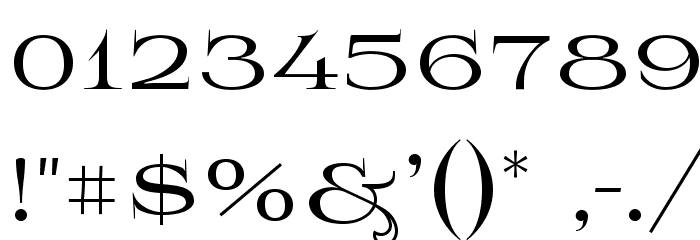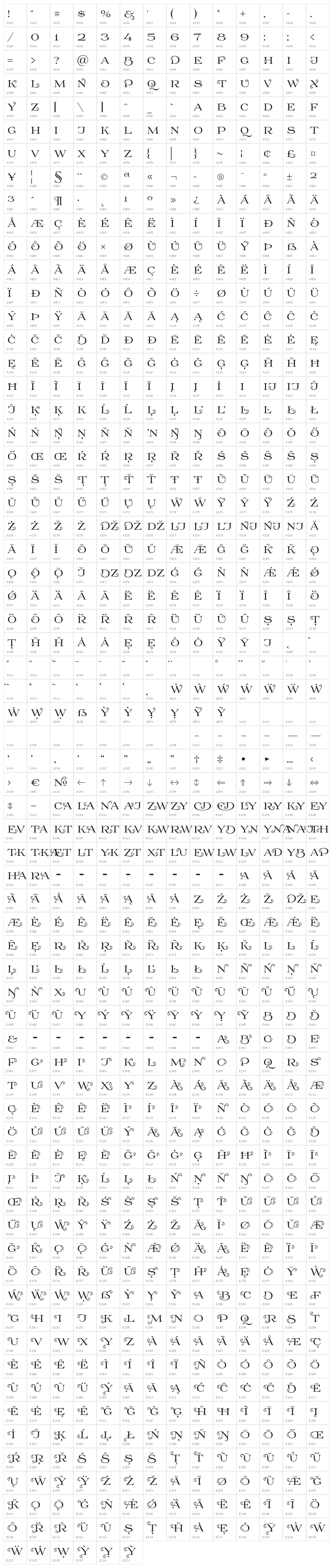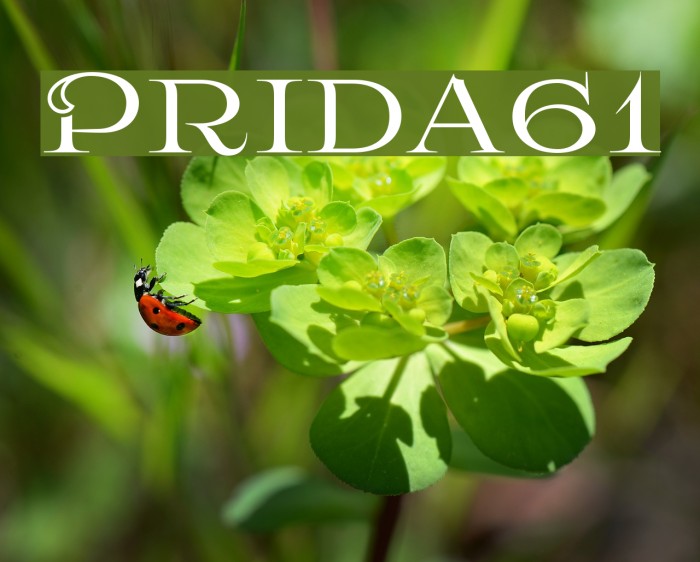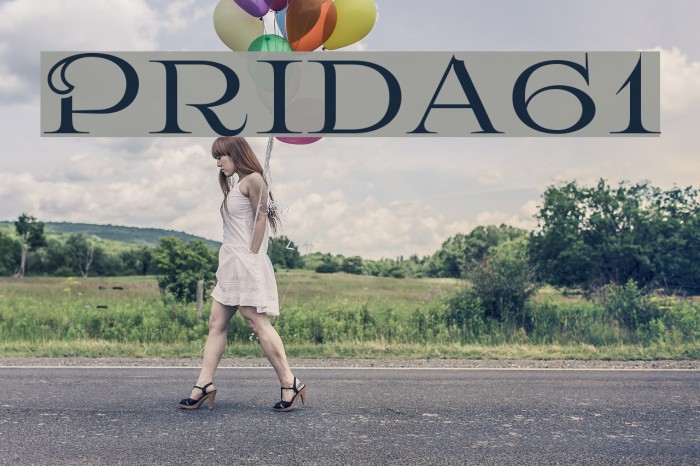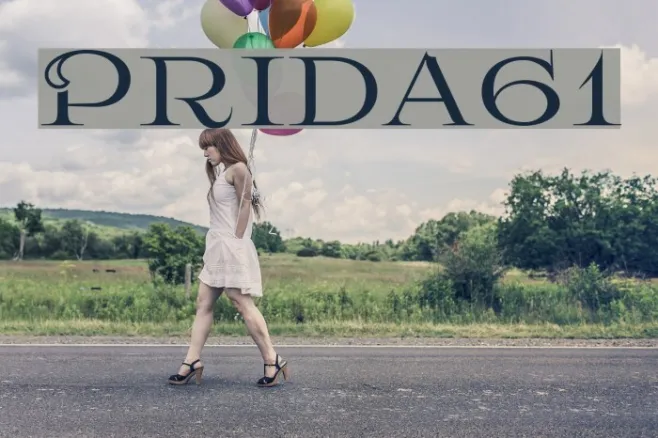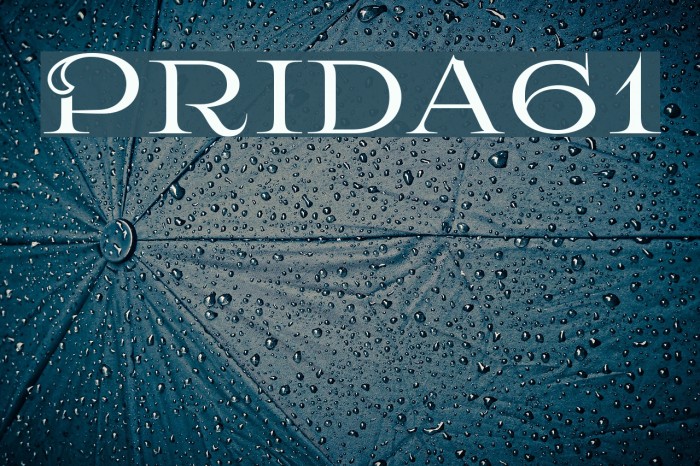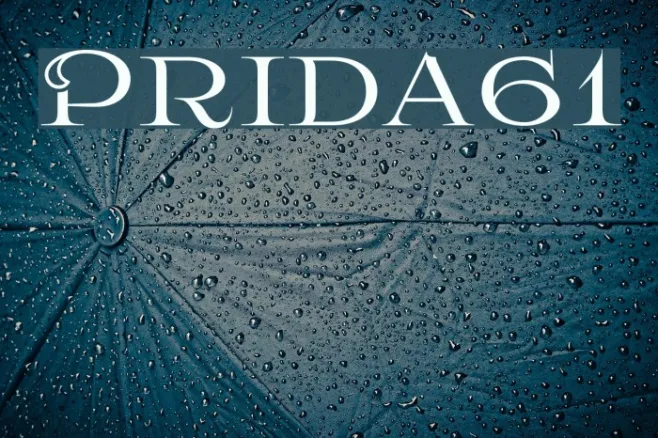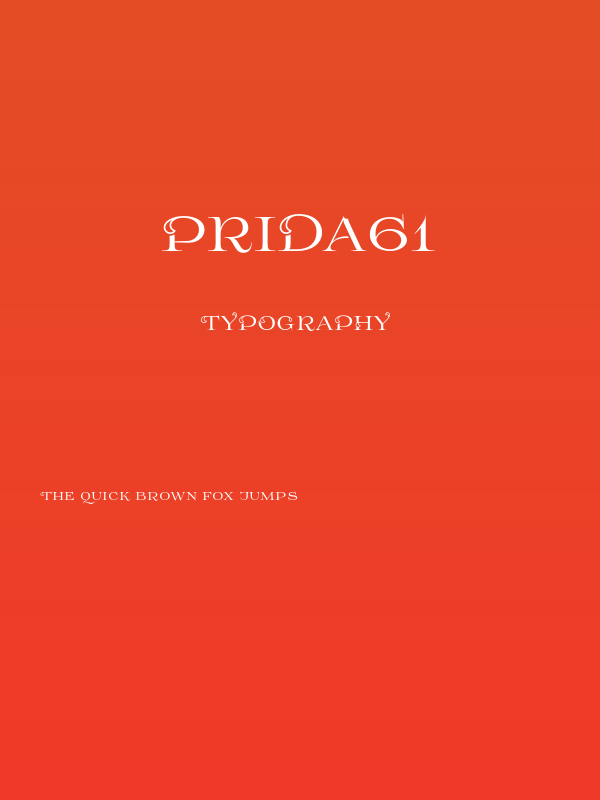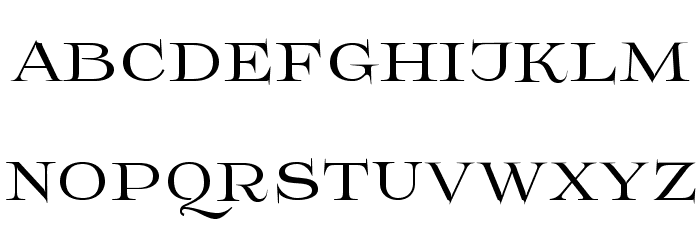
Prida61 Font
Prida61 Description
This font features a decorative and elegant style with intricate details and flourishes that give it a sophisticated and artistic appearance. The uppercase letters are adorned with unique swashes and curves, adding a sense of movement and flair. The lowercase letters maintain a more traditional serif structure, providing a balanced contrast to the ornate capitals. The numerals are consistent with the overall style, featuring subtle embellishments that enhance their visual appeal. Special characters are designed with similar attention to detail, ensuring a cohesive look across all glyphs. This font is ideal for projects that require a touch of elegance and creativity, such as invitations, branding, and editorial design.
| Proposed Projects | Ideal for wedding invitations, luxury branding, editorial design, and artistic posters. |